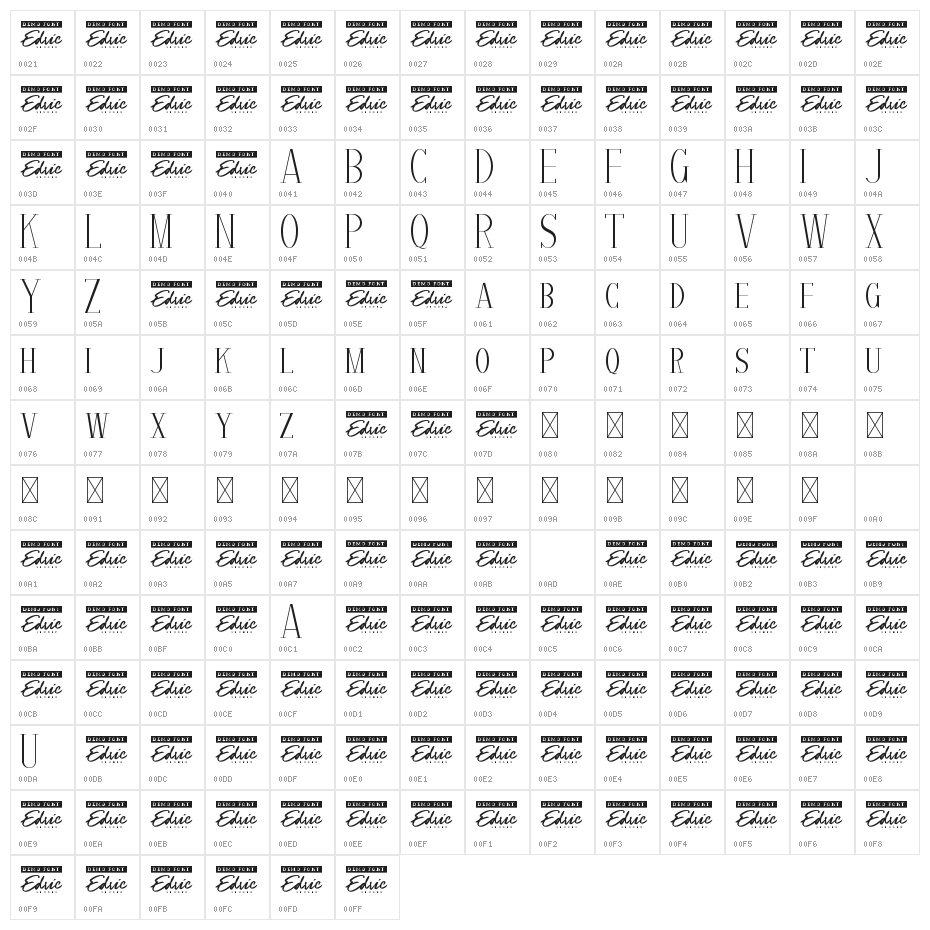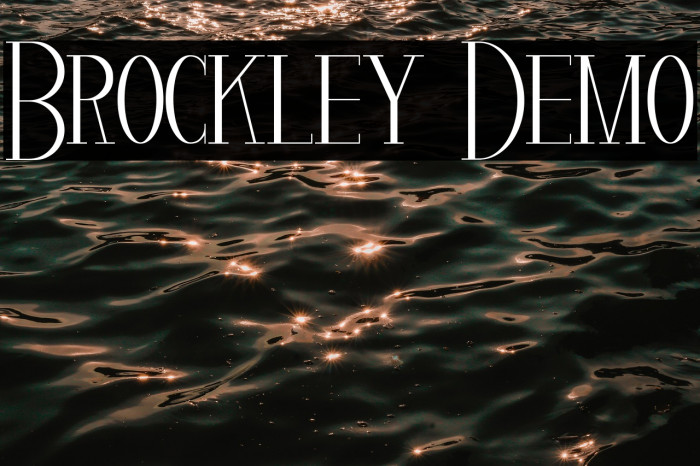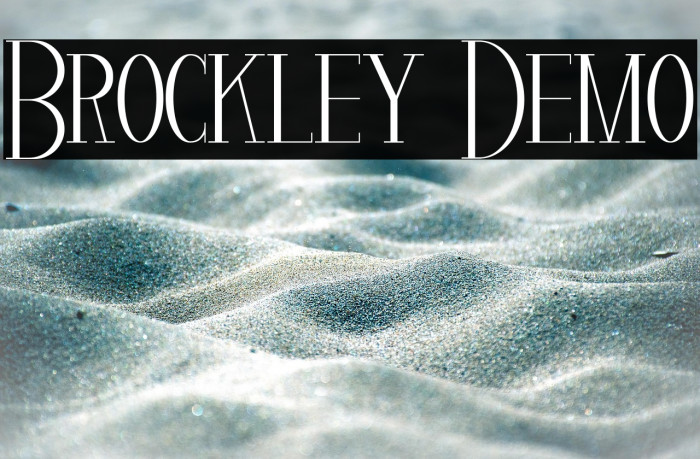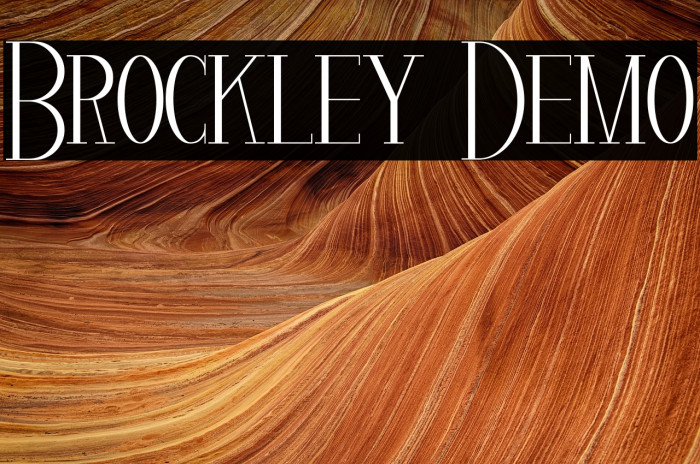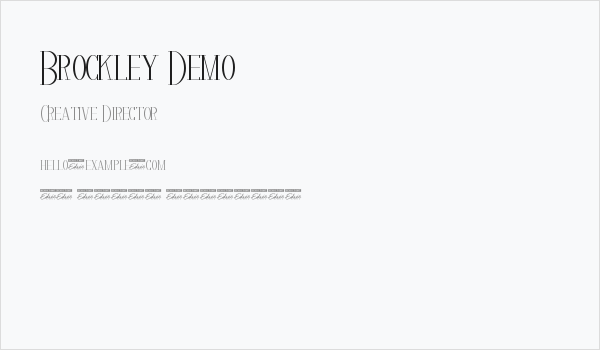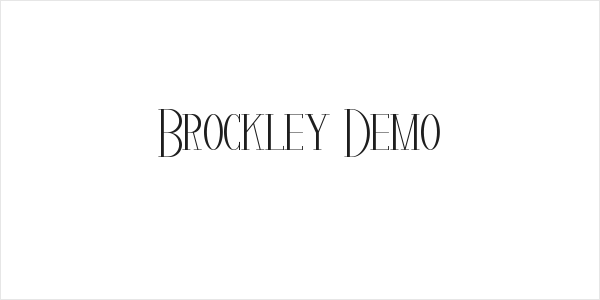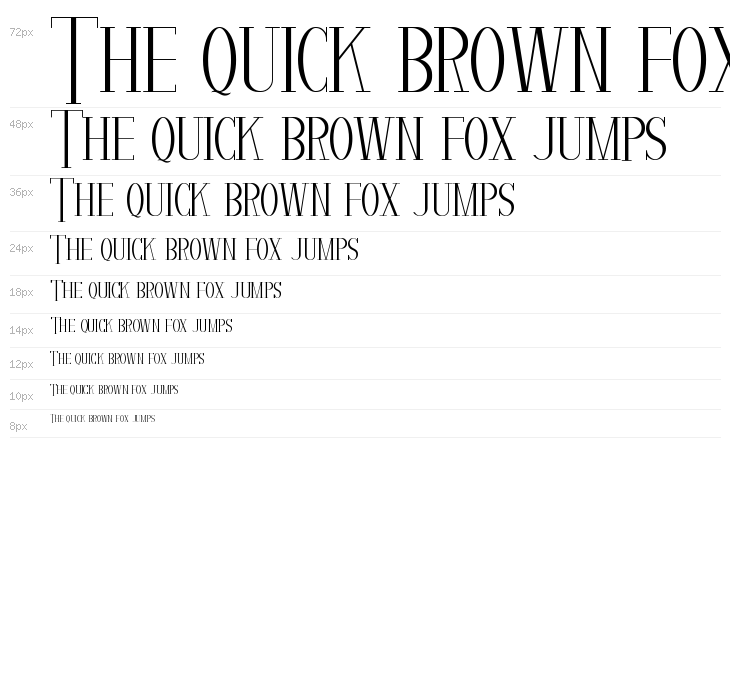
Brockley Demo Font
Brockley Demo Description
This font features a striking and elegant design with tall, narrow letterforms that exude sophistication. The uppercase letters are particularly elongated, giving a sense of grandeur and formality. The strokes are thin with a high contrast between thick and thin lines, adding to its refined appearance. The lowercase letters maintain a consistent style, complementing the uppercase with their slender and graceful curves. This font is ideal for creating a sense of luxury and elegance in design projects. Its unique style makes it stand out, perfect for high-end branding and editorial design.
| Overall Style | Elegant and sophisticated |
| Proposed Projects | Ideal for luxury branding, editorial design, fashion magazines, and upscale invitations. |